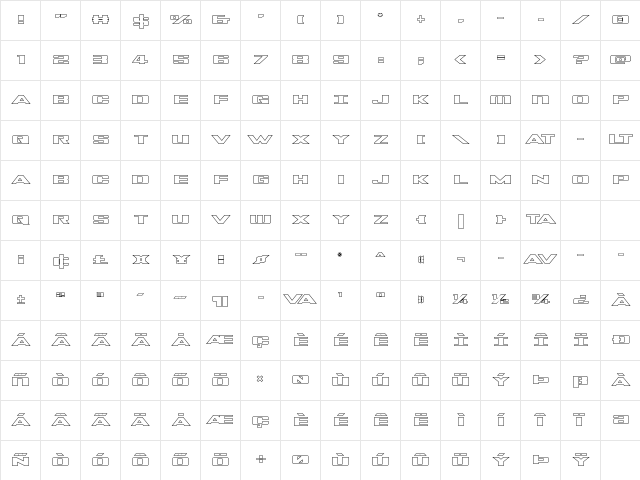
Tigershark Outline Regular Free Font
Tigershark Outline Regular
Tigershark Outline Family
Design Context for Tigershark Outline
Tigershark Outline is built around its visual character rather than neutral utility - its distinctive forms are designed to make an impression at display sizes.
Font Pairing: Pair with a clean neutral sans-serif for body copy to let Tigershark Outline's character lead without overwhelming the composition.
Pro Tip: Use Tigershark Outline exclusively at display sizes - it was designed to be seen, not read at length. Let a neutral companion handle body copy.